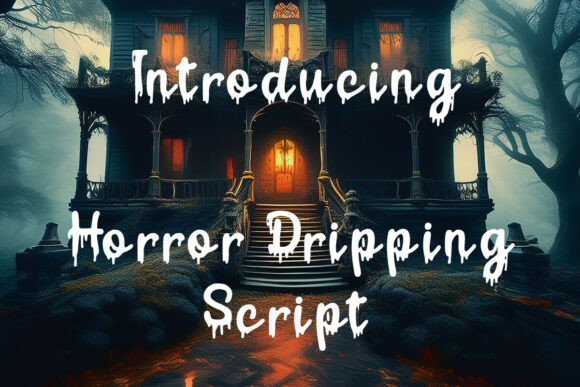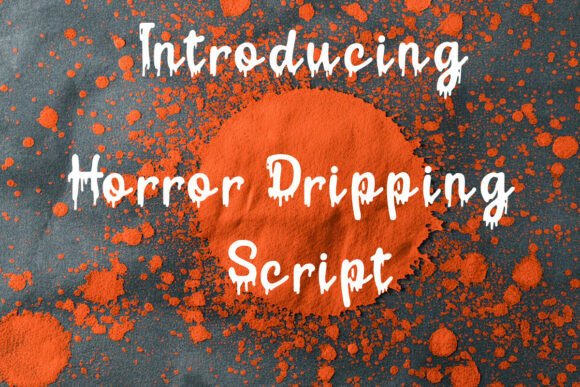
Unleash Your Creativity with the Horror Dripping Script Font
Have you ever stared at a blank canvas, eager to bring your creative vision to life, only to be held back by a lack of inspiration? You’re not alone. Many designers face this daunting challenge, but what if you had the perfect tool to spark your imagination and elevate your designs?
Enter the Horror Dripping Script Font – a game-changing typeface that’s about to revolutionize your creative endeavors. This unique font is designed to captivate your audience with its thrilling aesthetic appeal, making it perfect for a wide range of applications, from shirts and stickers to branding initiatives and magazine layouts.
As a designer, you’ll appreciate the versatility and striking beauty of the Horror Dripping Script Font, which perfectly balances creativity with style. Whether you’re working on a greeting card, Cricut project, or social media campaign, this font is sure to add an unmistakable allure to your designs.
Horror Dripping Script Font Key Features
- Font Family: Horror Dripping Script
- Unique Characteristics: Distressed, dripping, and horror-themed design elements, including blood-like splatters and eerie textures
Review of Horror Dripping Script Font
Overall, I’d say that Horror Dripping Script Font is an attention-grabbing and unique choice for any design project that requires a spooky or eerie vibe. ✨ It’s perfect for creating a sense of tension or foreboding, which can be incredibly effective in horror-themed designs, book covers, or even advertisements.
One of the standout features of this font is its versatility. ✨ It can be used in a variety of contexts, from titles and headings to body text, and it always looks striking. The dripping effect gives the impression of blood or some other liquid substance, which can add to the overall atmosphere of fear or unease.
While Horror Dripping Script Font is a great choice for many design projects, there are a few limitations to consider. ⚠️ One of the main issues is that the font can be difficult to read, especially in smaller sizes or when used for extended periods of time. This is due to the intricate design of the letters, which can make them appear blurry or distorted.
Another limitation is that the font may not be suitable for designs that require a lot of text or body copy. ⚠️ The dripping effect can make the text look cluttered or overwhelming, which can detract from the overall message or meaning of the design.
In conclusion, I’d say that Horror Dripping Script Font is a great choice for designers who want to create a spooky or eerie atmosphere in their designs. While it may have some limitations, the unique design and versatility of the font make it a valuable addition to any design toolkit.
Design Tips
- Use Horror Dripping Script Font sparingly to avoid overwhelming the design.
- Choose a contrasting color to make the font stand out.
- Use the font for titles and headings, rather than body copy.
To get the most out of “Horror Dripping Script Font,” consider the following tips:
- Use it sparingly to add a touch of eeriness to your design.
- Pair it with other fonts to create a unique and haunting combination.
- Experiment with different font sizes and colors to achieve the desired effect.
The “Horror Dripping Script Font” is commonly used in:
- Horror-themed designs, such as movie posters or Halloween decorations.
Pacifico is a beautiful, modern script font that works well for titles, headings, and body text. It’s perfect for designers who want a clean and elegant look. Pacifico is more refined and polished compared to Horror Dripping Script Font, which has a more distressed and spooky feel.
Great Vibes is a fun and lively script font that’s great for creative projects, such as invitations, posters, and social media graphics. It’s more casual and playful compared to Horror Dripping Script Font, which has a darker and more ominous tone.
Q: Can I customize the Horror Dripping Script Font?
A: Yes, the Horror Dripping Script Font is a highly customizable font with advanced features such as ligatures, swashes, and stylistic sets. You can access these features using font software such as Adobe Illustrator or Photoshop, or by using a font editor like FontForge.